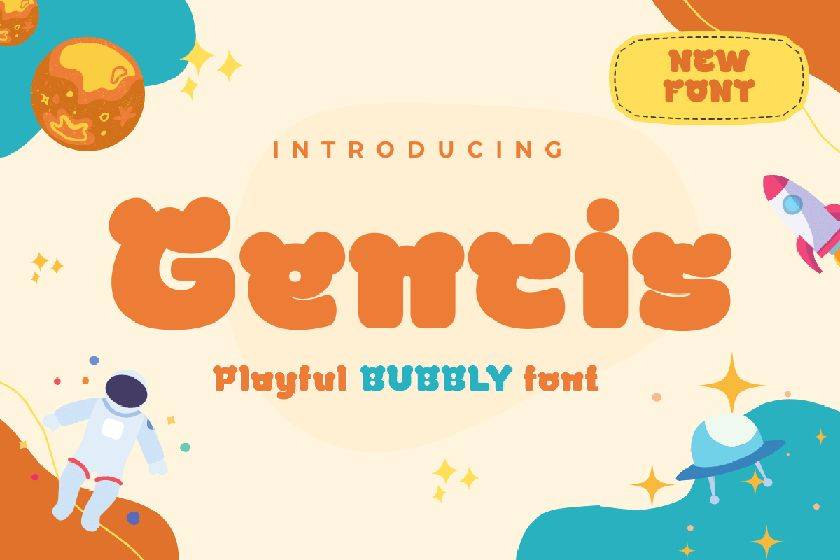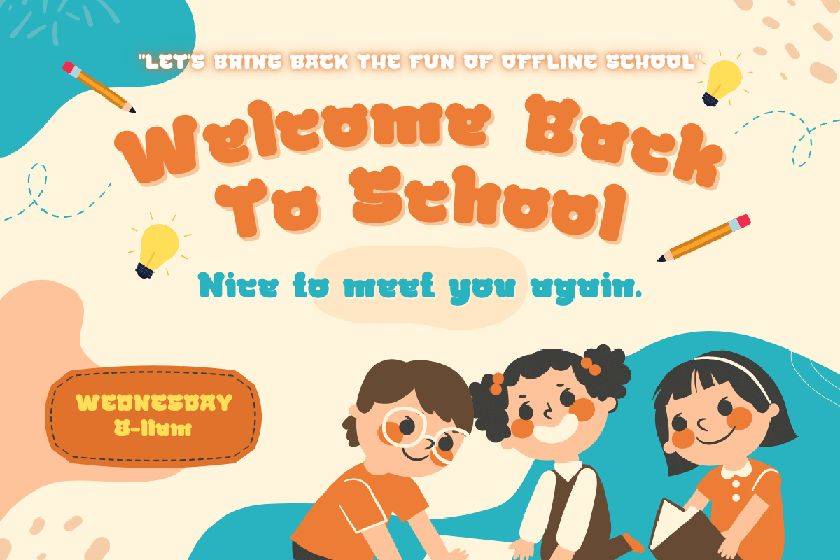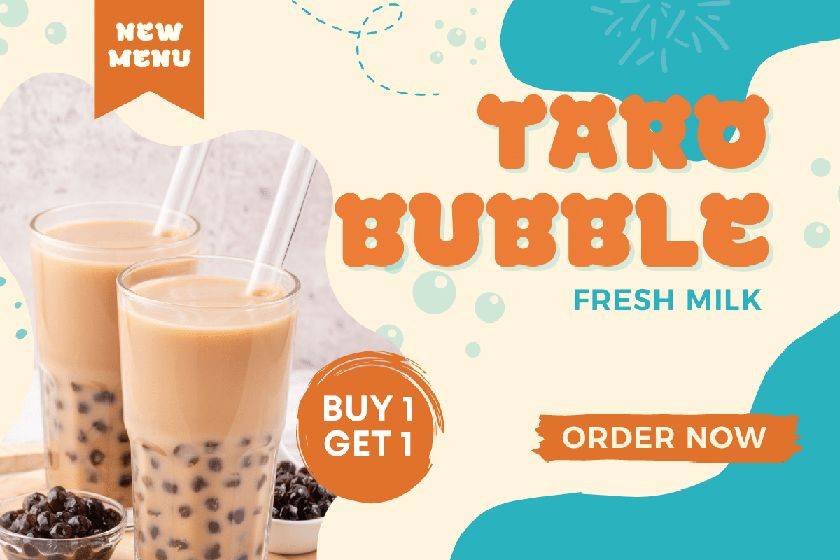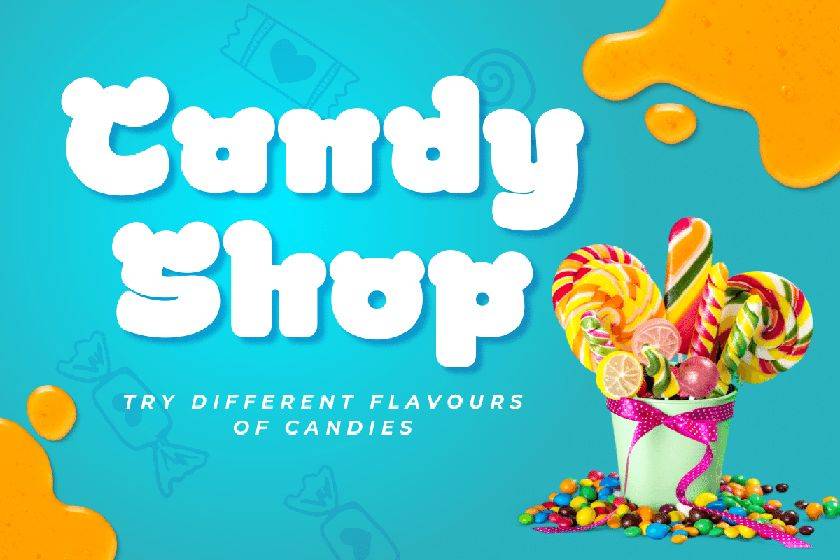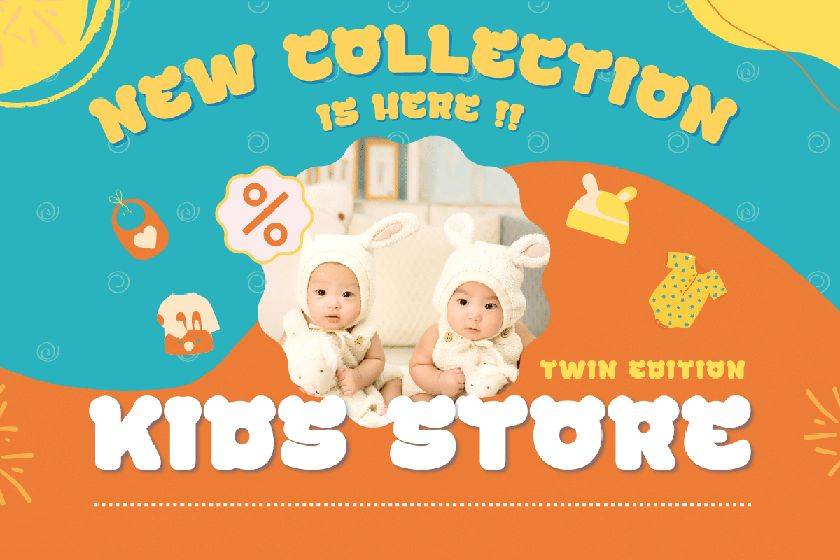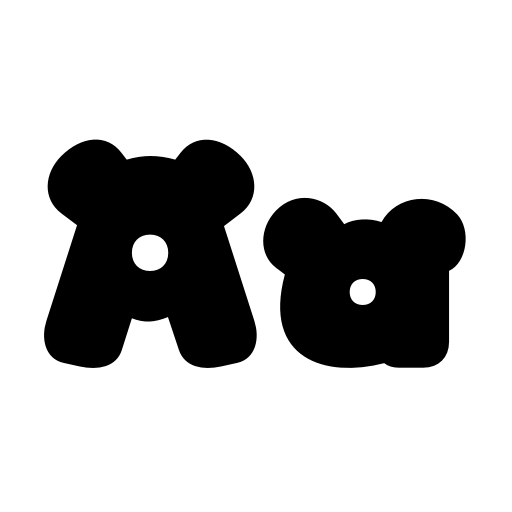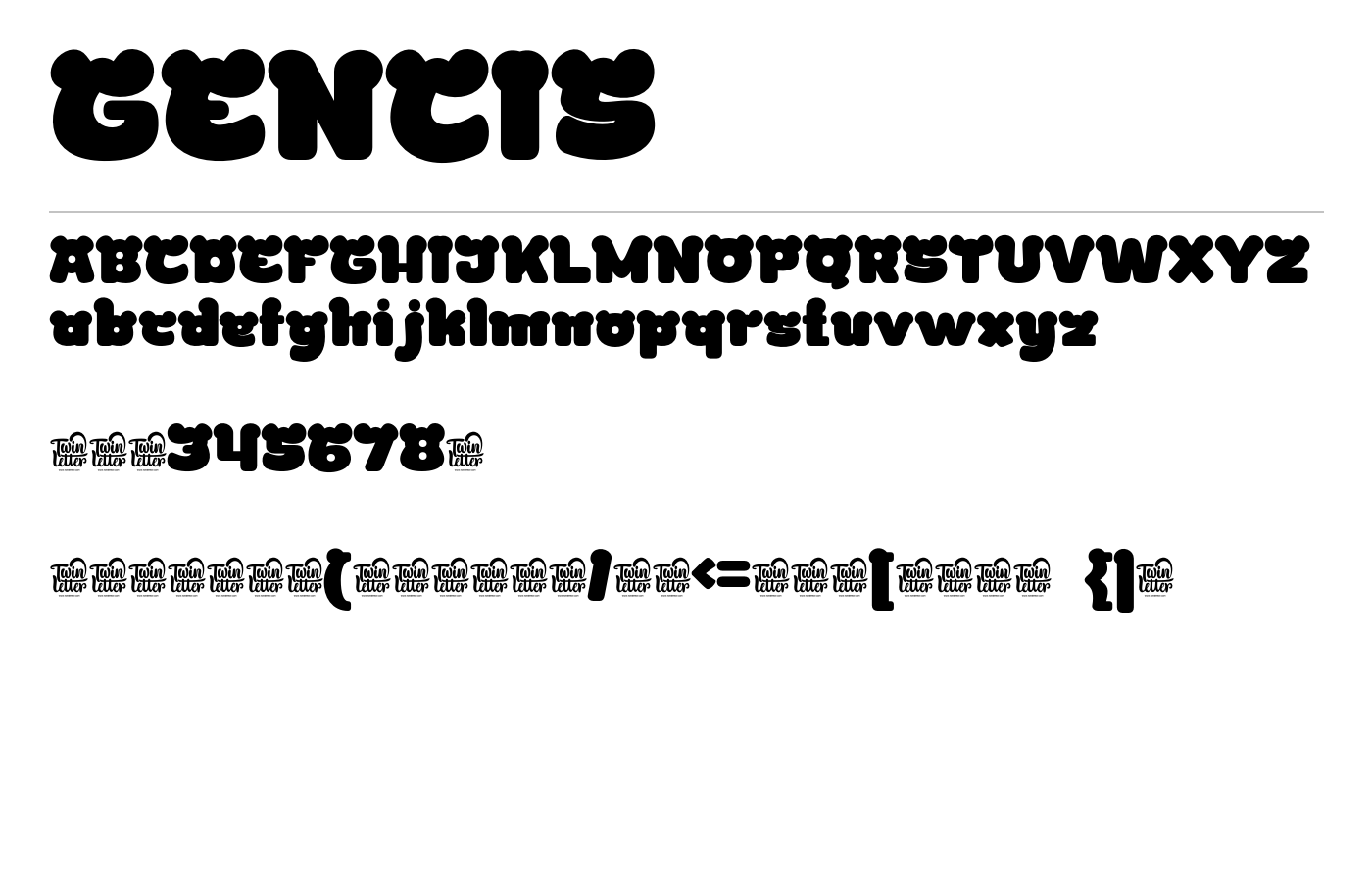
Gencis is a bold, playful display font characterized by its thick, rounded letterforms and soft, bubbly style that gives a friendly and approachable feel. With its heavy weight and generous curves, it works wonderfully for eye-catching headlines, logos, and packaging that seek a fun, casual vibe. This font is perfect for brands and designs that want to convey warmth and personality in a modern, unique way.
Gencis Font
About Gencis Font